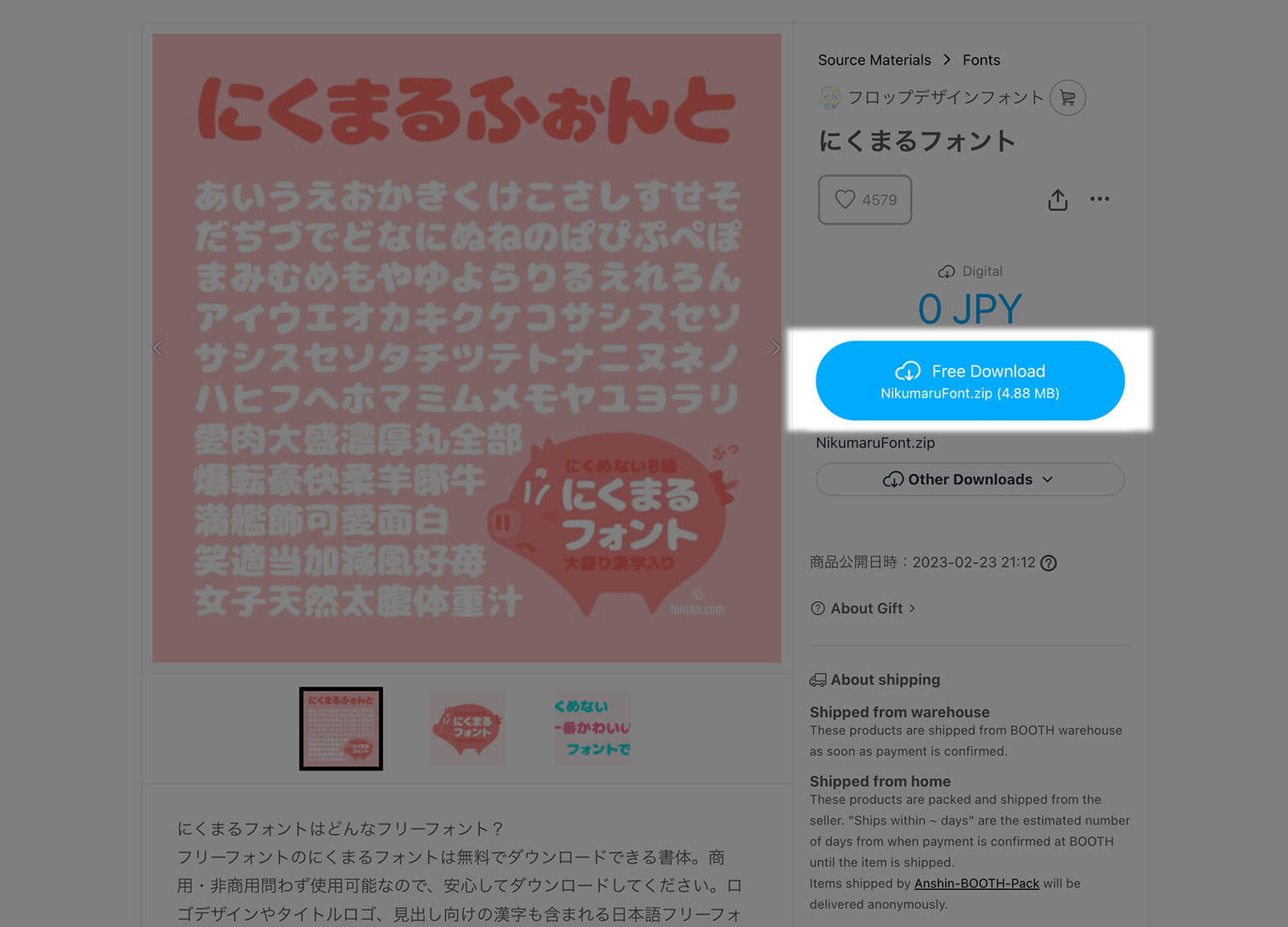
Nikumaru Free Font
Nikumaru Font is a cute, rounded and chubby free Japanese font that you can download. You can use this for commercial works and it supports many characters, including kanji characters up to JIS Level 2 standard. This font is great for cute and cheerful designs.
- Hiragana and Katakana
- Kanji (JIS Level 2)
- Alphanumeric
- Symbols and punctuations